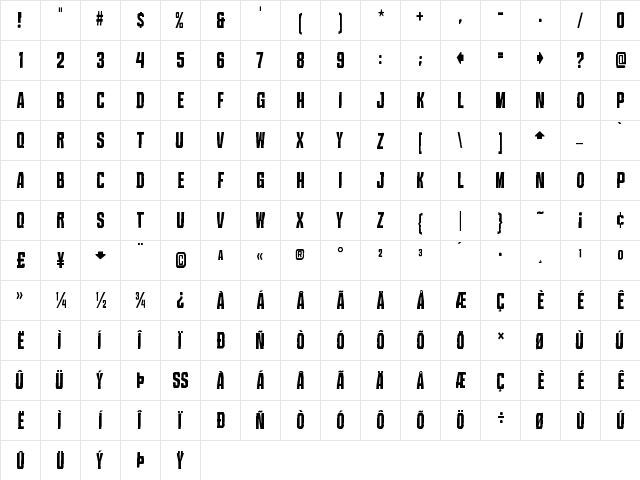
Croteau Regular
Design Context for Croteau Typeface
Croteau offers clean, dependable letterforms without strong stylistic allegiance, making it a practical choice for designers who need flexibility.
Pro Tip: Pair Croteau with a font of contrasting weight or personality to build a more expressive typographic hierarchy.